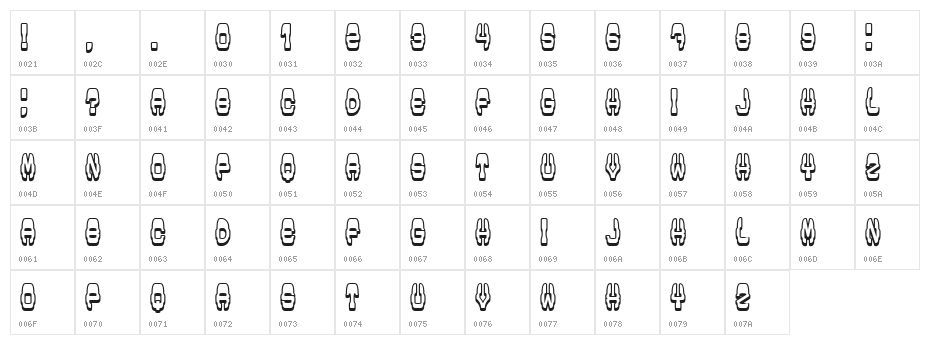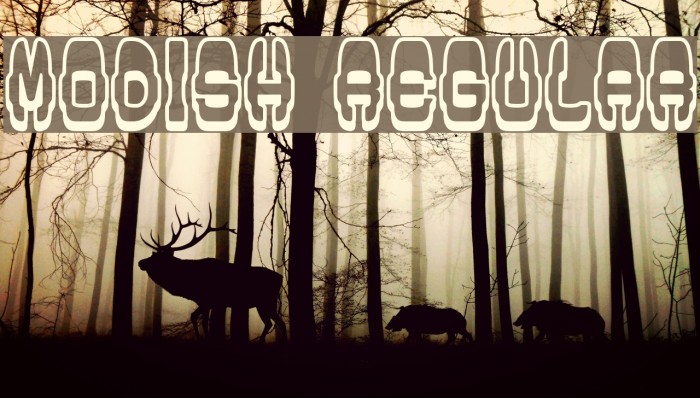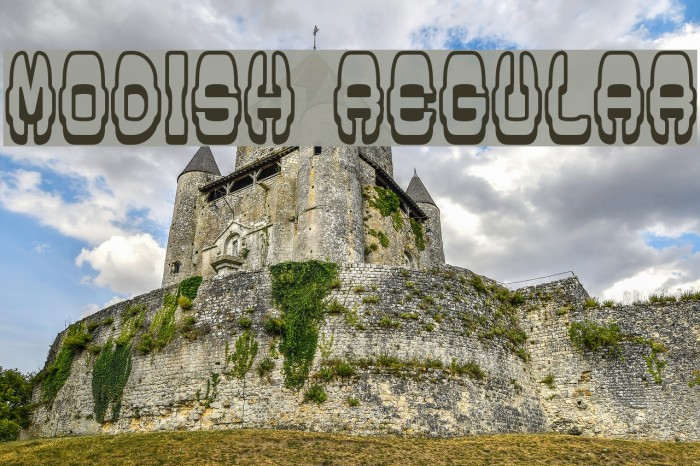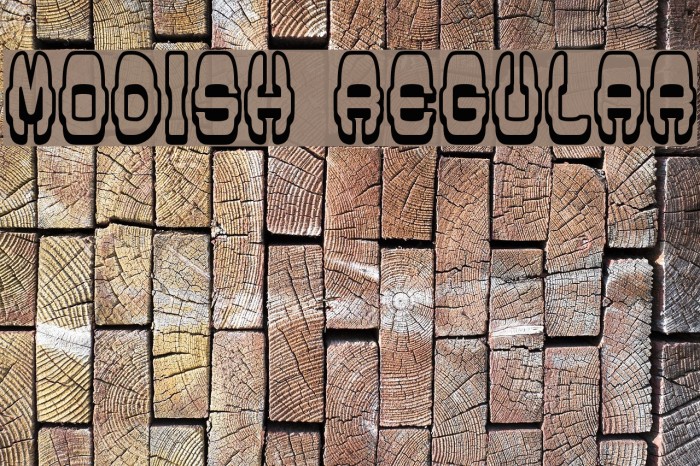
Modish Regular Font
Modish Regular Description
This font features a bold, three-dimensional appearance with a distinct outline that gives each character a shadowed effect. The letters are uppercase and have a geometric, blocky style that is both modern and eye-catching. The design incorporates a playful yet structured aesthetic, making it suitable for attention-grabbing headlines and titles. The numbers and special characters maintain the same bold and outlined style, ensuring consistency across all characters. The font's unique design is ideal for projects that require a strong visual impact.
| Proposed Projects | Ideal for posters, logos, headlines, and any design needing a strong visual impact. |